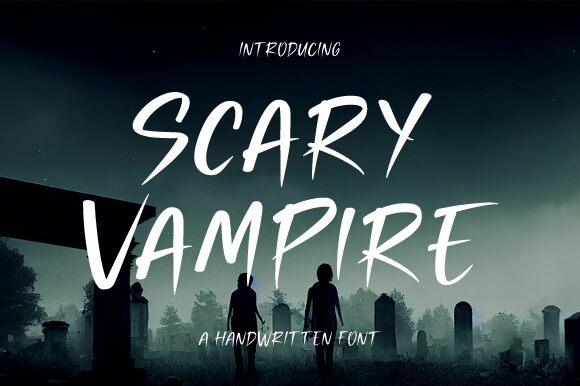
Scary Vampire
Scary Vampire font by Graphix Line Studio is a free Halloween brush display font. Each letter lunges forward with slashed strokes and fang-like spikes, leaving inky, uneven edges that feel freshly clawed. The rhythm is quick and scratchy, with tight energy that makes headlines bite without becoming unreadable.
Using Scary Vampire, you’ll get instant mood for haunted house flyers, party invitations, horror movie thumbnails, escape room branding, seasonal packaging, and eerie social posts. This free font shines on big, high-contrast titles and dramatic overlays where its rough texture can breathe. Pair it with a clean geometric sans for body copy, and keep tracking slightly loose to let the jagged forms show their menace.